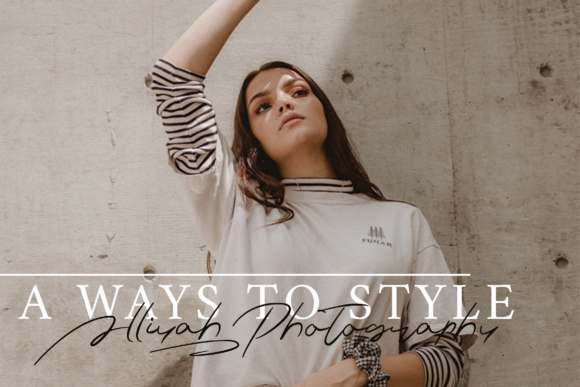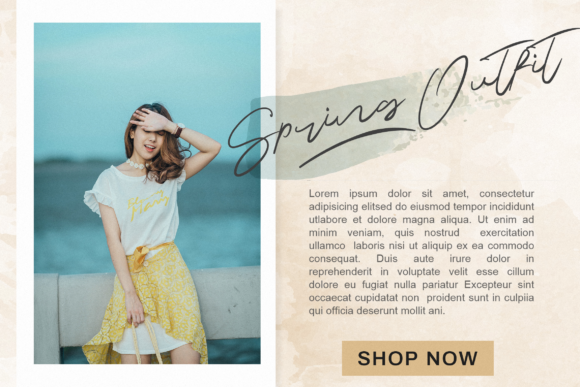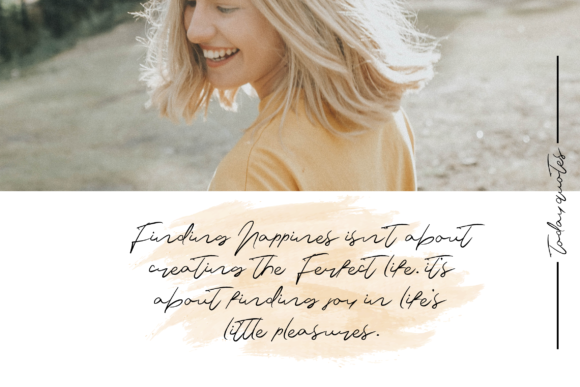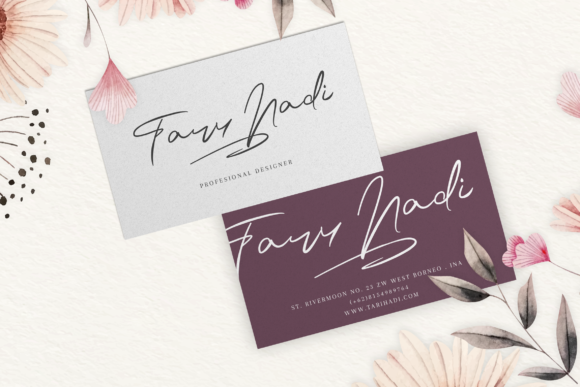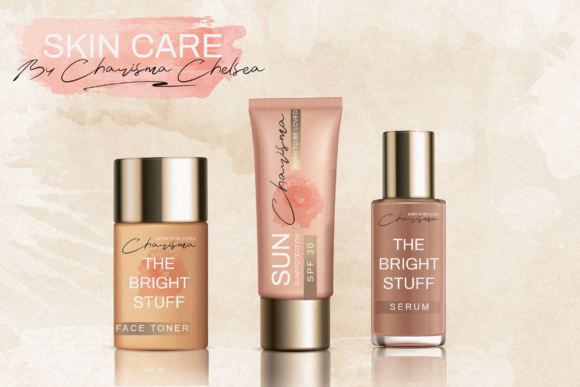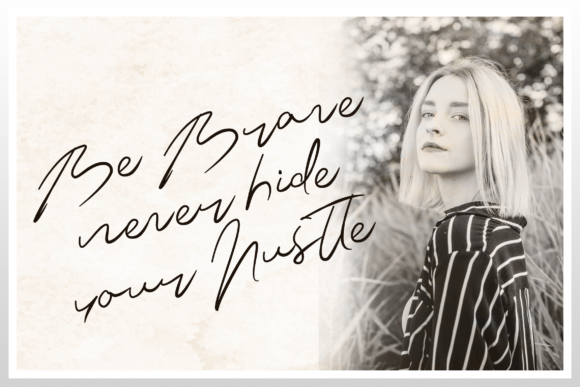
The Antigna Font: A Designer’s New Best Friend
I’ll never forget the time I was working on a branding project for a luxury wedding planner. I had spent hours pouring over design boards, color palettes, and mood boards, but something was missing. The design felt flat, and I couldn’t quite put my finger on what it needed. That’s when I realized: it was the font. I had been using a standard sans-serif font, but it just wasn’t doing the design justice. That’s when I stumbled upon Antigna, a distinct and graceful script font that completely transformed my design.
A First Impression: What I Love About Antigna
Antigna is a stunning script font that has quickly become one of my go-to fonts for a variety of projects. Here are just a few things I love about it:
• ✨ Elegant and refined: Antigna has a sophisticated feel that’s perfect for high-end branding, wedding designs, and luxury products.
• ✅ Highly versatile: This font can be used for everything from blog posts and social media graphics to logos, invitations, and more.
• 💫 Unique character: Antigna has a distinctive style that’s both modern and timeless, making it perfect for designers who want to stand out from the crowd.
The Honest Review: A Few Quirks to Consider
While Antigna is an amazing font, it’s not perfect. Here are a few quirks to keep in mind:
• ⚠️ Limited use in body text: While Antigna is stunning in headlines and titles, it can be a bit challenging to read in longer blocks of text.
• 🤔 Glyph limitations: While Antigna has a range of beautiful glyphs and OpenType features, it’s not as extensive as some other script fonts on the market.
While I couldn’t find any information on the specific designer behind Antigna, it’s clear that they were inspired by the beauty of handwritten script. The font’s elegant lines, flowing curves, and refined details make it perfect for designers who want to add a touch of sophistication to their work.
Font Name Antigna Font
Author Hyperactype
Q: Is Antigna suitable for body text?
A: While Antigna is stunning in headlines and titles, it’s not ideal for longer blocks of text. Consider pairing it with a sans-serif font for body text.
Q: Does Antigna have OpenType features?
A: Yes! Antigna has a range of beautiful OpenType features, including glyphs and stylistic alternates.